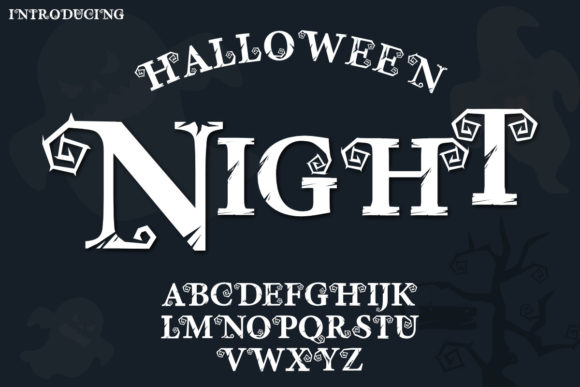
Night Halloween: A Bold Typographic Tool for Editorial Design
In the crowded landscape of digital publishing, visual distinction is paramount. For publishers, bloggers, and editorial designers seeking to inject a definitive mood into their work, the Night Halloween font offers a powerful and specialized typographic solution. This bold and creepy decorative typeface isn't just a novelty; it’s a deliberate design asset crafted to command attention and establish a specific atmospheric tone across a wide range of publications. Understanding its application within editorial frameworks is key to leveraging its full potential for enhancing reader engagement and brand identity.
Night Halloween Font for Magazine Covers and Article Headers
The primary strength of the Night Halloween display font lies in its immediate visual impact. Its bold weight and inherent creepy character make it an exceptional choice for magazine covers, feature article headers, and blog post titles where establishing mood is the first priority. When a lifestyle blog publishes a deep-dive into haunted history locales, or a digital magazine launches a special October edition, using Night Halloween for the main headline instantly telegraphs the content's thematic core. This font functions as a visual hook, capturing reader curiosity before the first paragraph is read. For editorial designers, this translates to a reliable tool for creating a strong visual hierarchy, ensuring the most important textual element on a page or screen is both legible and emotionally resonant.
Using Night Halloween Font in Quote Graphics and Chapter Openers
Beyond master headlines, the Night Halloween typeface excels at accentuating specific content moments. Pull quotes within long-form articles, standout statistics in investigative reports, or the opening title of a chapter in an ebook all benefit from this font's distinctive personality. Its decorative nature means it should be used sparingly—for these accent typography roles—to maintain readability while providing visual spice. Imagine a recipe ebook for "Spooky Season Treats," where each recipe name is set in Night Halloween, creating a consistent and playful theme throughout the digital download. Similarly, a printable guide on creating Halloween décor can use this font for section headings, transforming a utilitarian worksheet into a cohesive, branded design asset.
Night Halloween for Publication Branding and Visual Consistency
A consistent typographic voice is a cornerstone of professional publication branding. For a content creator specializing in supernatural fiction reviews, a horror-themed podcast newsletter, or an independent publisher of dark fantasy, adopting the Night Halloween font for logo design, mastheads, and recurring section headers builds a recognizable identity. This consistency across blog headers, newsletter graphics, and social media promo materials reinforces the publication's niche and aids in audience recall. It’s a strategic choice beyond mere decoration; it becomes part of the publication's visual language, signaling to readers the kind of content they can expect before they even begin reading.
Pairing Night Halloween Font with Readable Body Copy
As a display font, Night Halloween is designed for short, impactful text. It is not suitable for body copy, captions, or long paragraphs. The key to successful editorial implementation is intelligent font pairing. The bold, ornate characteristics of Night Halloween demand a clean, highly readable counterpart for the main text. A simple sans-serif font like Helvetica or Open Sans for digital screens, or a classic serif font like Garamond for print materials and ebooks, creates a balanced and professional layout. This pairing ensures the decorative font grabs attention without sacrificing the fundamental readability of the article, guide, or magazine content. Always test your pairings for legibility at various sizes and across devices, particularly for mobile layouts and PDF exports.
Practical Readability Considerations for Night Halloween
When deploying the Night Halloween decorative font in your projects, practical considerations ensure optimal results. Its bold style means it can perform well in print formats like printable planners or wedding guides with a macabre theme, but always check print proofs for clarity. For screen reading in ebooks or digital magazines, ensure adequate size and contrast against backgrounds. Given its likely stylistic flourishes, it may contain alternate characters or ligatures—exploring these options can add unique flair to your headline designs. Furthermore, verify its multilingual support if your publications require non-English characters to maintain brand consistency across global audiences.
The Night Halloween font, as a bold and creepy decorative typeface, is a specialized instrument in the editorial designer's toolkit. It serves not as a default choice, but as a deliberate one for projects where mood, theme, and visual boldness are paramount. From establishing the haunting tone of a blog header to branding a series of printable Halloween party guides, its application is defined by its capacity to enhance narrative and identity. By employing it strategically for titles, subtitles, and accent typography, and pairing it with neutral, readable body fonts, you can confidently add it to your spooky creations and build publications that are not only well-structured but visually unforgettable.